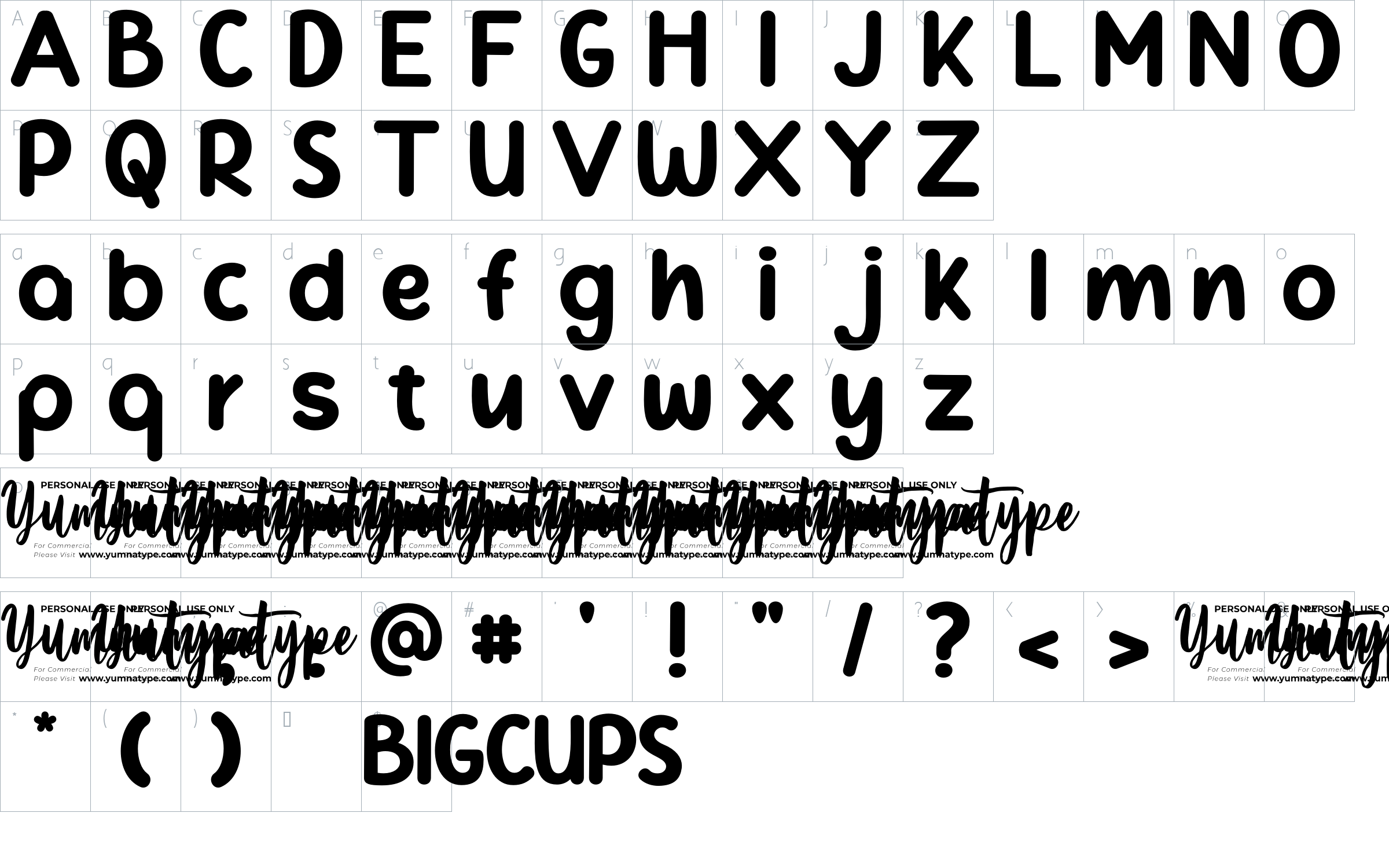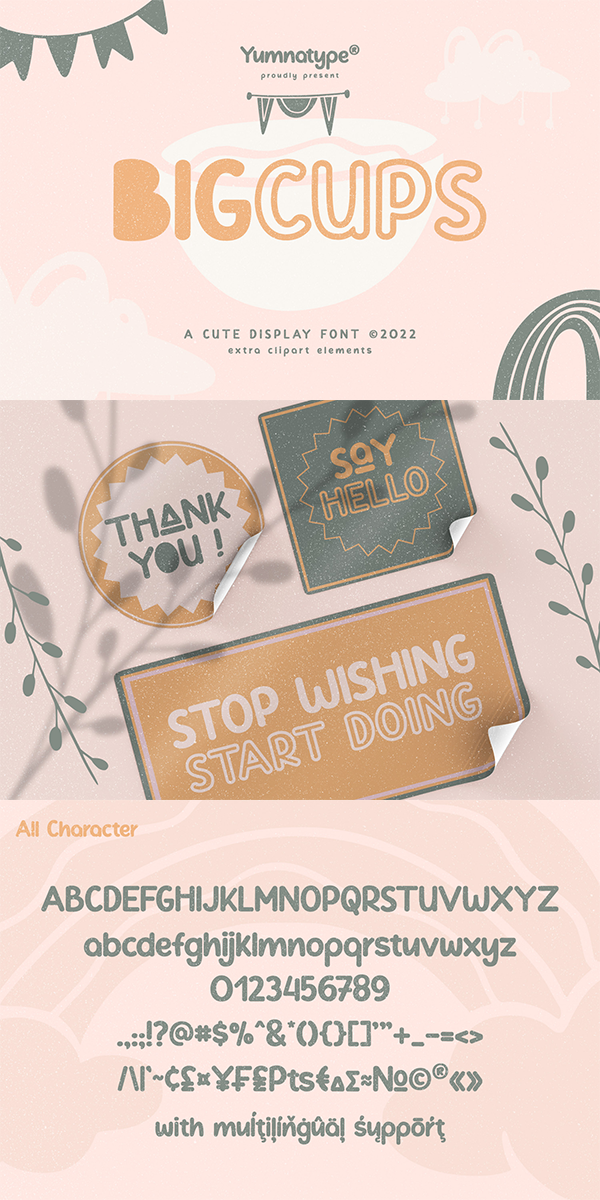
Bigcups Font
About Bigcups
Bigcups- A Display Font
Bigcups is an amazing display font. Bigcups comes with a bold outline to add fun and unique soul to your design. This font support multi languages to make your branding can reach global audiences. Bigcups can be used for branding, logos, social media quotes, stickers, posters, vintage designs, wall art, merchandise, social media, and many more.
-Uppercase and lowercase swashes